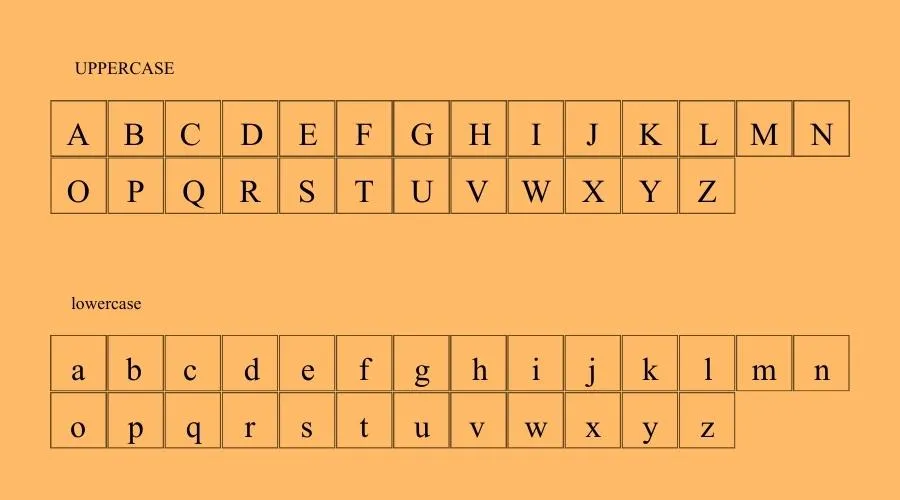
Angsana New Font
About Angsana New Font
The Angsana New Font is basically known as the name of the Thai Font and is under the category of the Serif texture family. This Font was invented by Unity progress and the license of this font is under the Microsoft Corporation.
This attractive typeface contains different types of weights like Regular, bold, and italic, and includes unique textures such as small letters, capital letters, numerals, symbols, digits, and many more. It may utilize in an expansive mixture of software for texture, body text, titles, headings, and other collection topics.
The Angsana New Font has attractive and good-looking texture styles. It has a unique future that is suitable for making logo designs, posters, banners, and much more projects.
This outstanding texture may also utilize for married-related headers or titles, CSS site designs, T-shirt designs, and jacket designs. This stylish typeface can utilize in advertisements and social media posts. It is suitable for book covers, party stages, and stage designs.
Both printed and digital media have extensively used this typeface. Since it is simple to read at a glance, it mostly operates for headlines and brief blocks of text. Additionally, the letters’ clear, uncomplicated lines make them a terrific option for logos and other graphic design projects.
The pairing quality of this font is unique and can compare with multiple other fonts such as;
With Asimov Pro Black Font: The two fonts that work well together will give a modern and stylish look to your projects.
Pairing it with Triton Font: When you will utilize these two-font in your designs then it will improve the readability of your projects and make your designs easier to read and understandable.
With Ander Hedge Font: This font has an excellent texture look impression for the viewers. so that it is perfect for multiple purposes and can compare with the Angsana New Font.
What type of font is Angsana New Font?
The Angsana New Font is basically known as the name of the Thai Font and is under the category of the Serif texture family.
Who is the designer of Angsana New Font?
This outstanding typeface was invented by Unity progress and the license of this font is under the Microsoft Corporation.
Where can I use the Angsana New Font?
The Angsana New Font can use for multiple types of projects. It can utilize for printings, social media posts, banners, and much more.